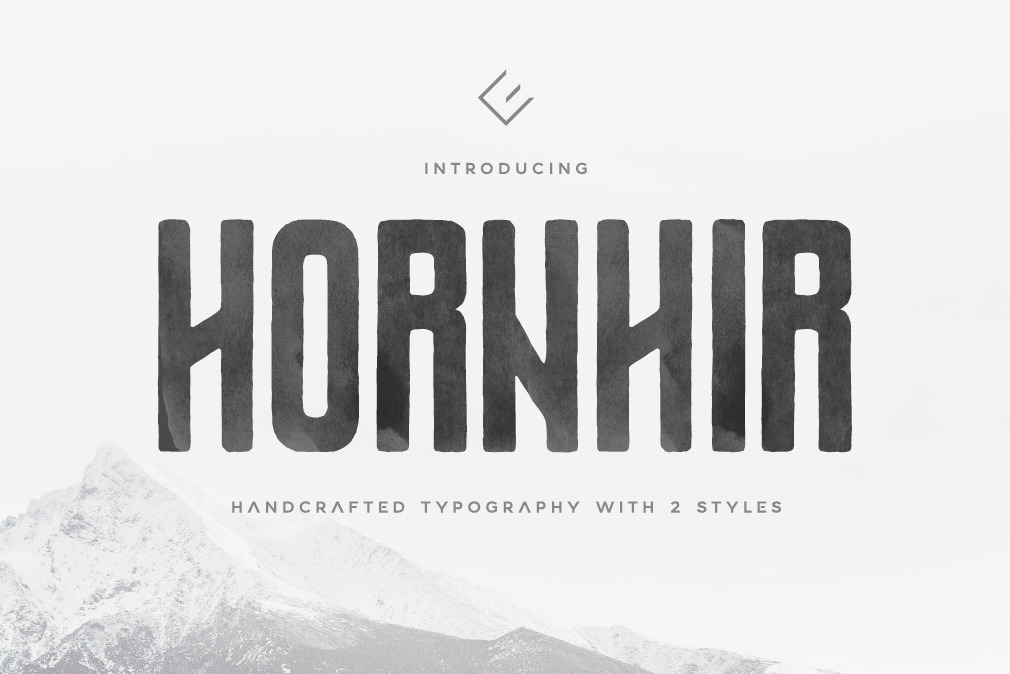
Hornhir Font Family (2 Fonts)
A set of 2 handcrafted all-caps fonts: Hornhill Sans & Hornhill Serif. As usual, we worked hard to deliver the best quality and I hope you'll like the results!
The fonts are meant for creating powerful headlines but they also work well for larger chunks of text. Don't be afraid to play with letter spacing as the fonts still look great if you increase the space between letters.
- Both fonts are uppercase (all-caps)
- Punctuation & Symbols
- Natural, handcrafted edges
- 100 Glyphs for each font
- Great multilingual support with lots of diacritics (see the character map)